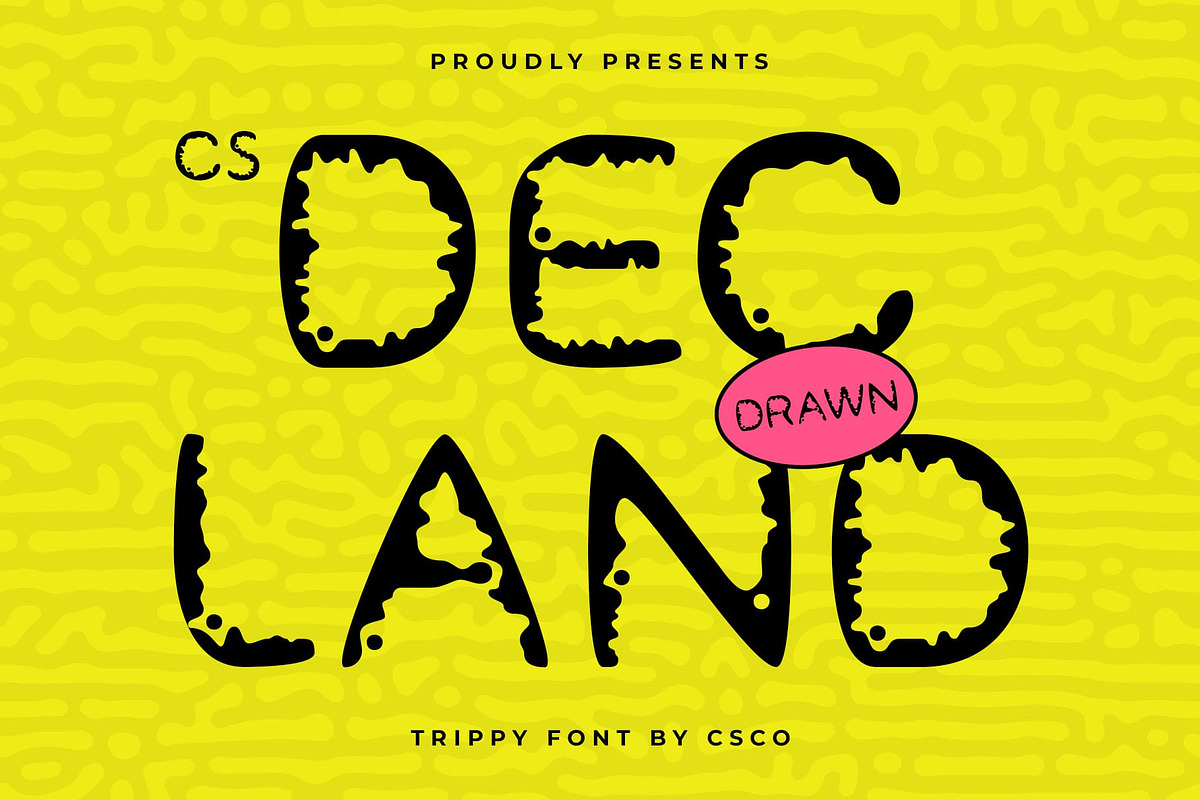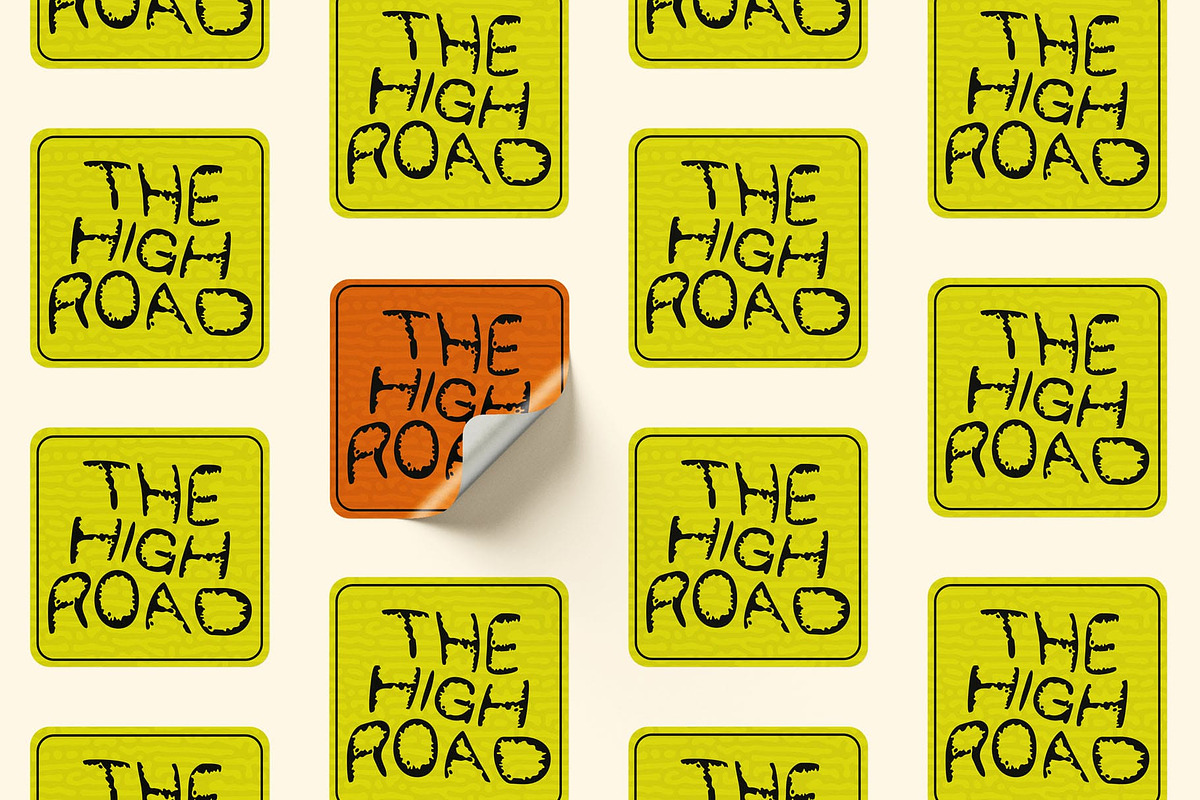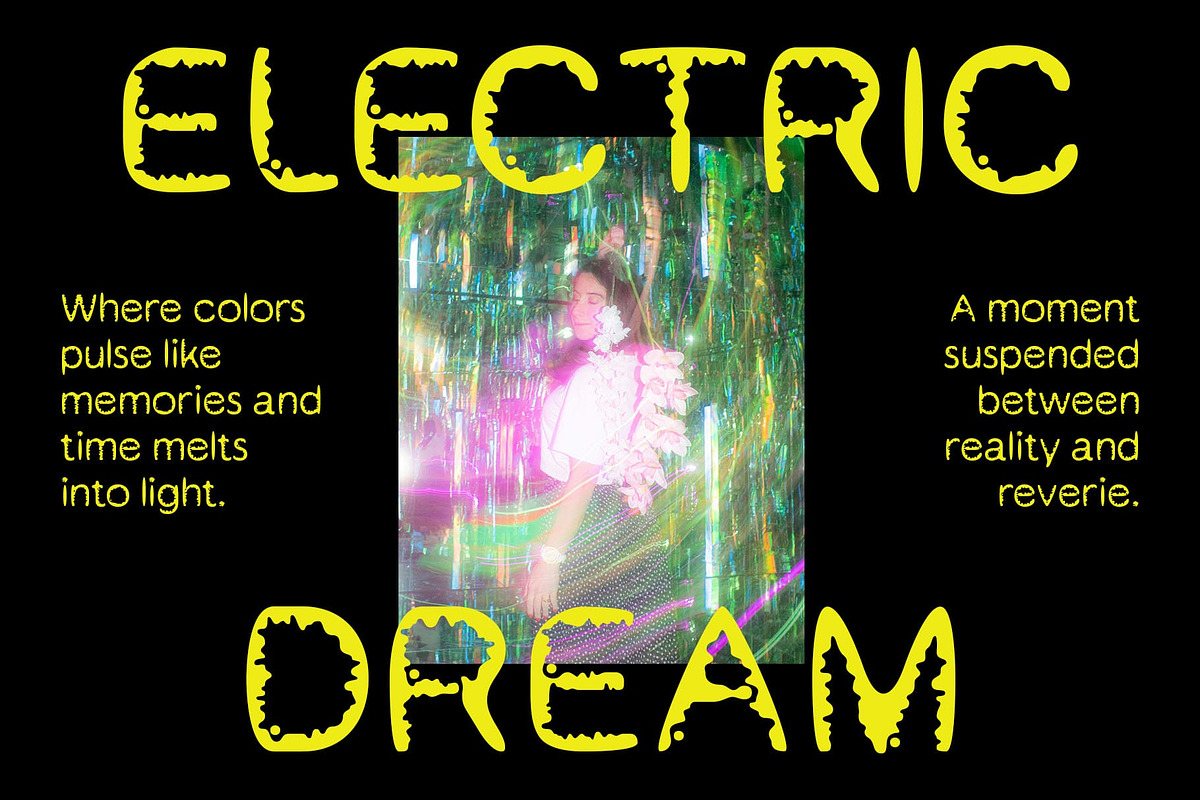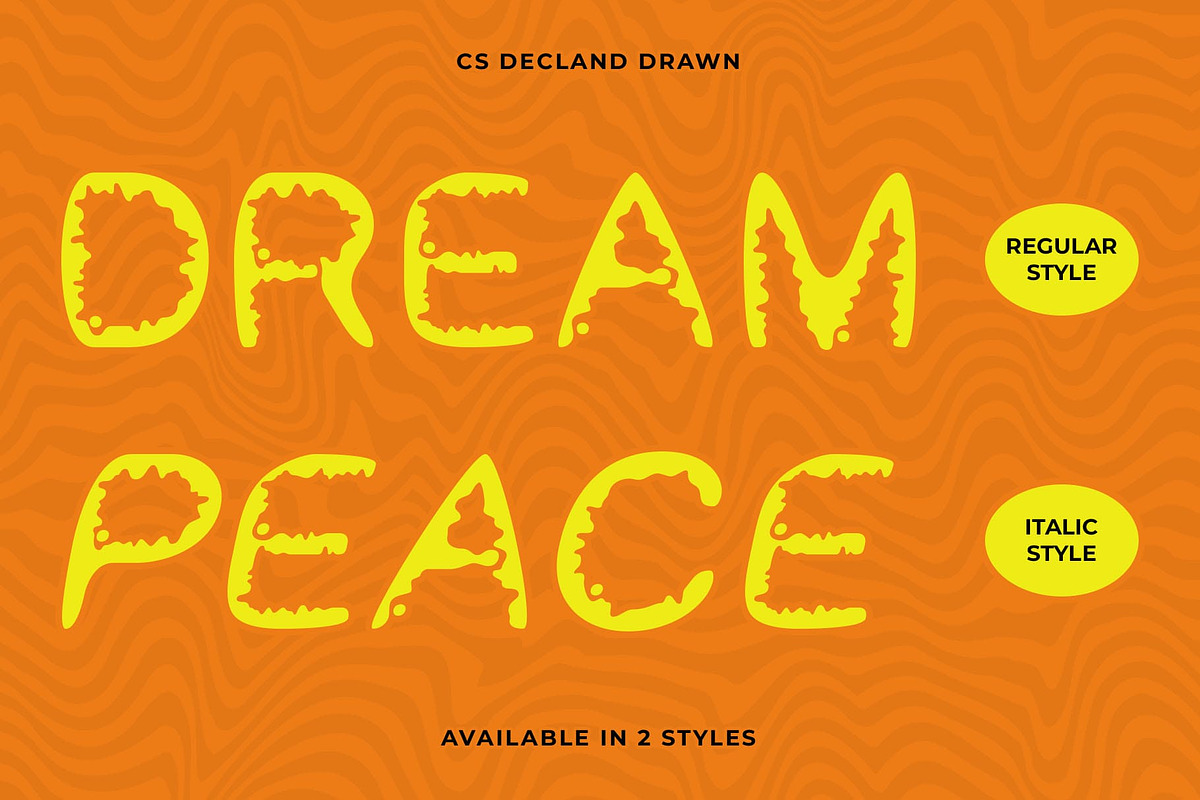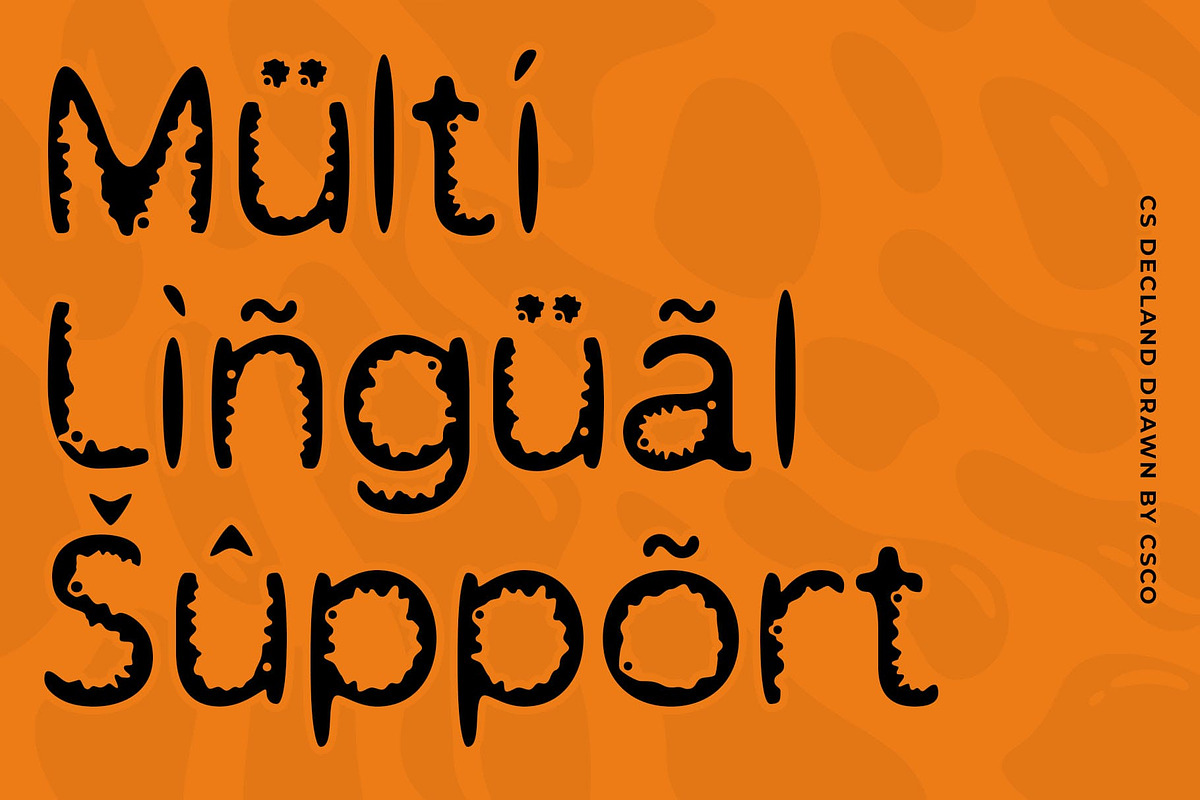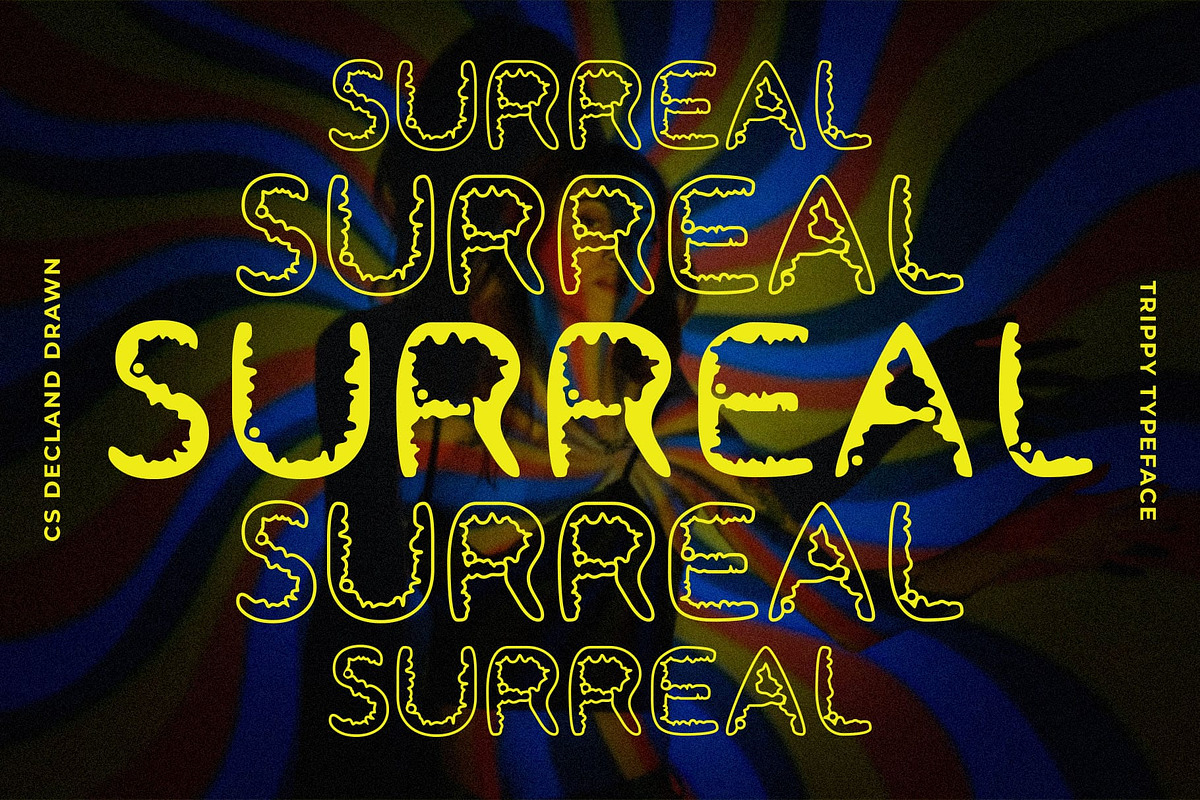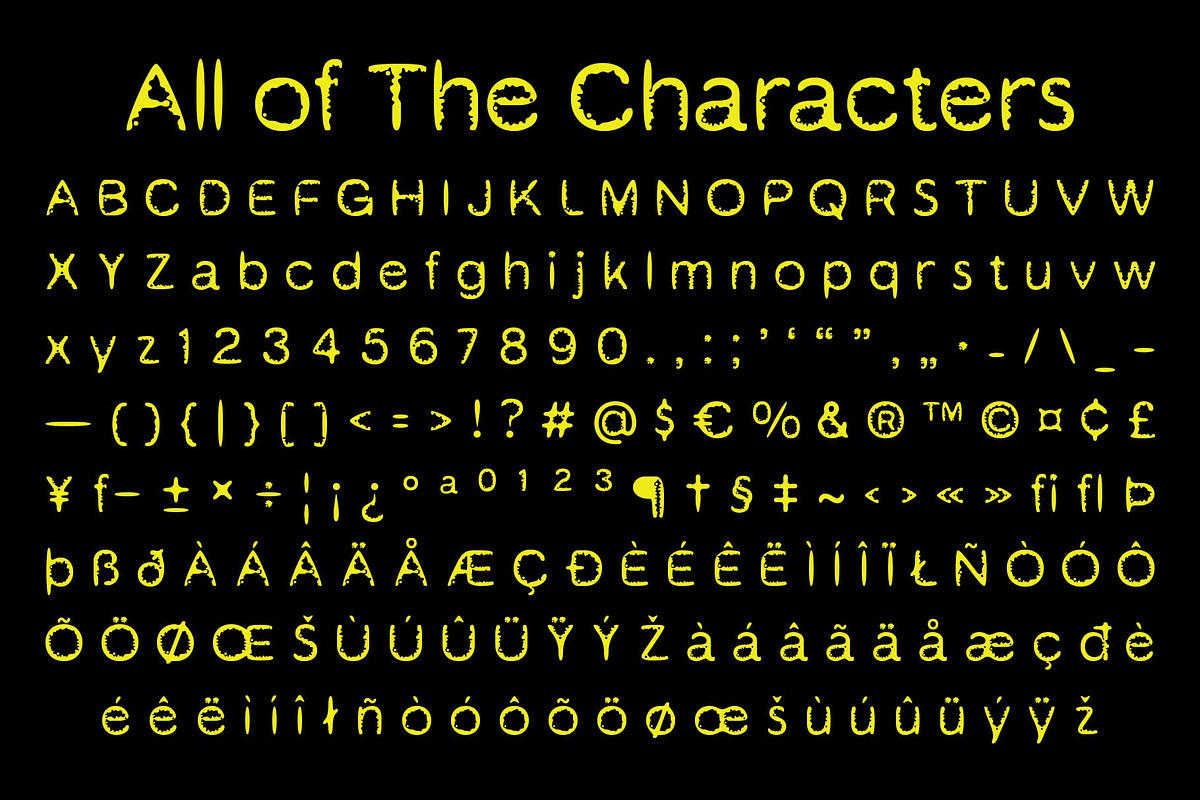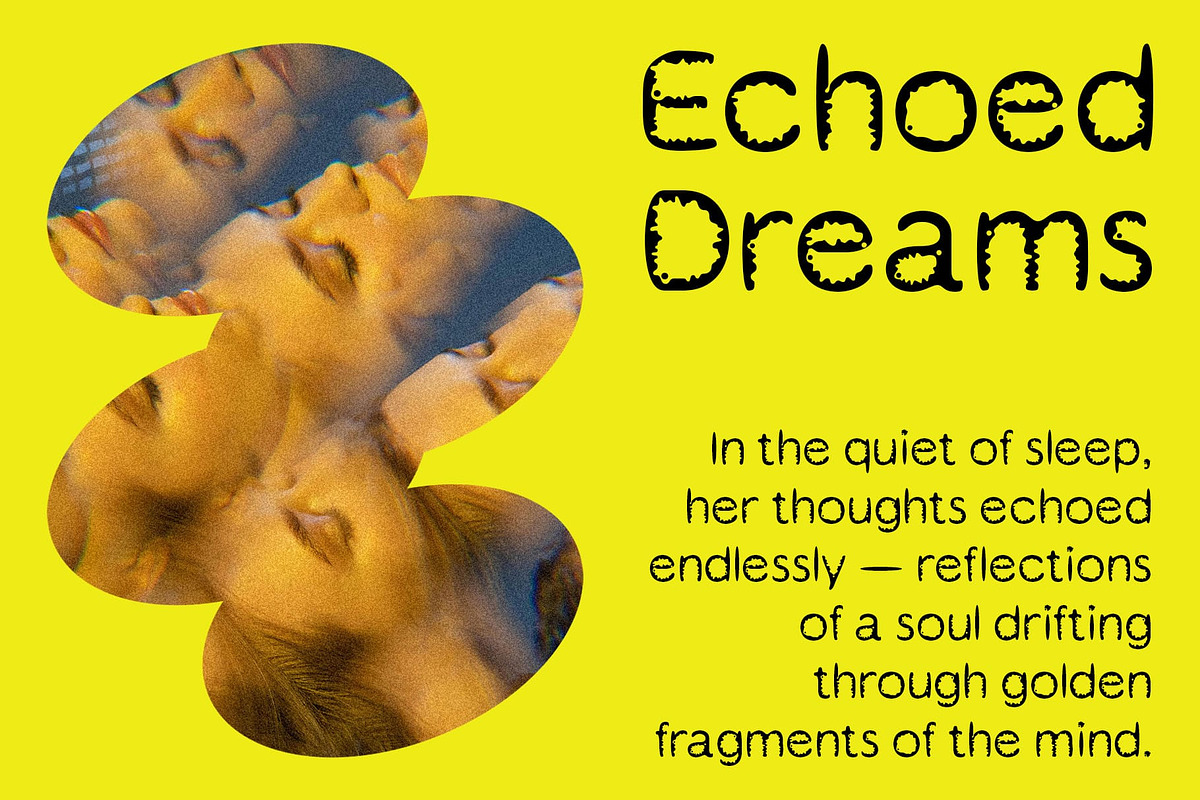
CS Decland Drawn
CS Decland Drawn – Trippy, Expressive, and Handmade
Let the Rhythm Flow Through Your Typography CS Decland Drawn is a display font that radiates psychedelic spirit and visual rhythm. Its fluid, warped letterforms pulse with a funky, free-spirited attitude, reminiscent of 60s and 70s counterculture art and music visuals. The result is a font that feels alive, dynamic, and unapologetically bold.
Organic Energy with a Hand-Drawn Soul What sets Decland apart is its drawn effect, which adds a textured, handcrafted layer to the already wavy, expressive forms. This detail enhances the font’s organic energy, making it feel more human, artistic, and emotionally charged—perfect for work that thrives on individuality and personal expression.
A Go-To Font for Creative Disruption This font isn’t just about letters—it’s about atmosphere. this trippy font conjures a dreamlike, bohemian energy that turns your message into an experience. From music posters, album artwork, and editorial spreads to packaging and social media visuals, it’s designed for creators who embrace the unexpected and the experimental.
For the Bold and the Bohemian Whether you’re channeling vintage psychedelia or pushing modern artistic boundaries, this funky font is your tool for creating eye-catching and unconventional visual stories. It’s made for those who dare to be different, offering a font that speaks with both volume and vision.